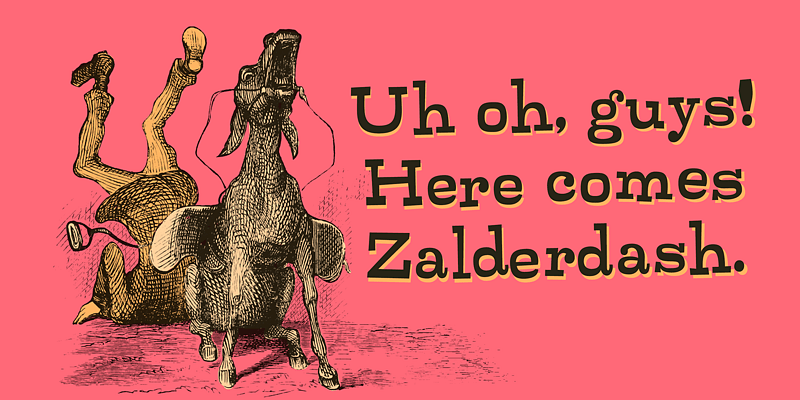
Zalderdash specimen
Zalderdash
It's Zalderdash, the campy Clarendon. This silly slab-serif typeface uses automatic character substitution to create a boisterous, bouncy impression.